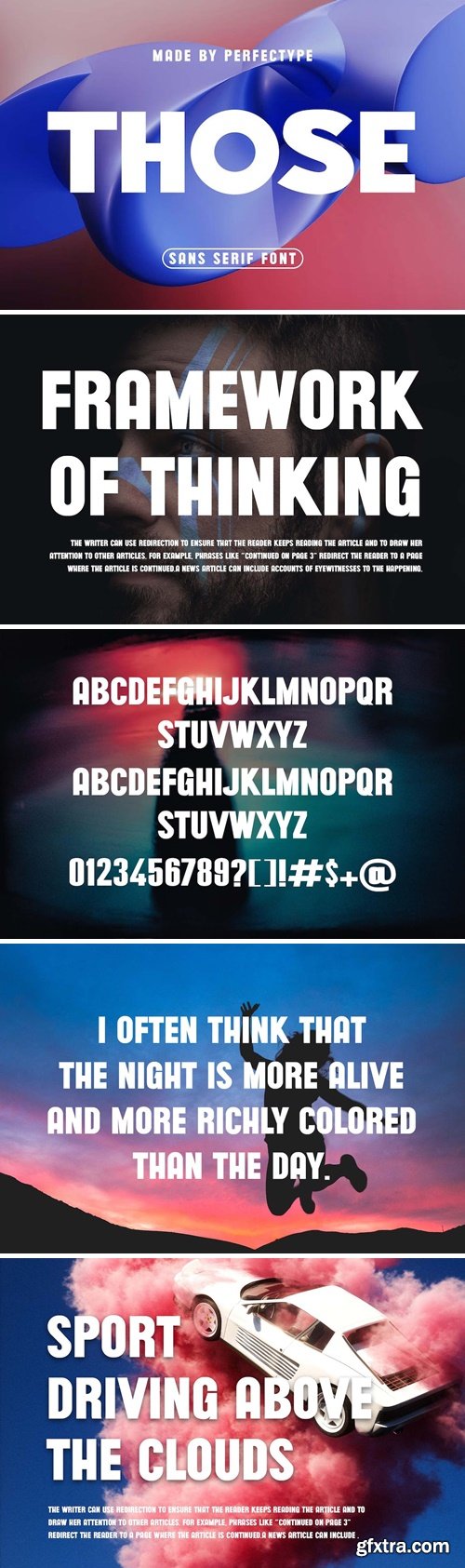
那些现代无衬线字体
inspired by the famous minimalist logo perfect for the purposes of designing templates, brochures, videos, advertising branding, logos, invitation, layout design, elegant crafting, beauty design and other.